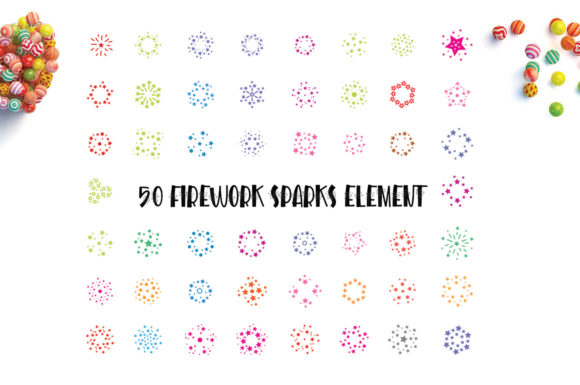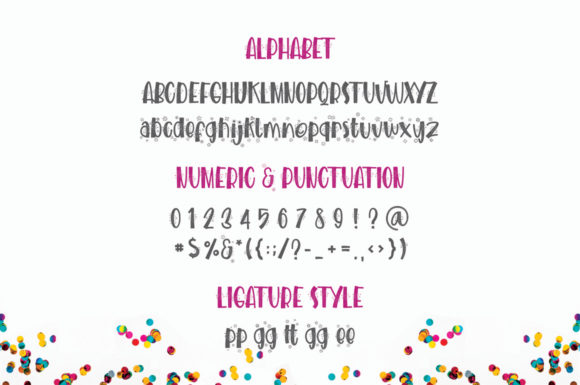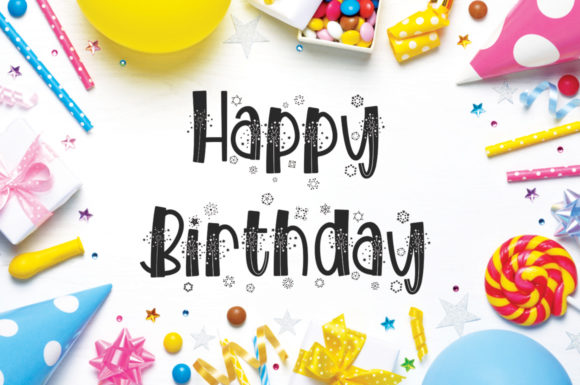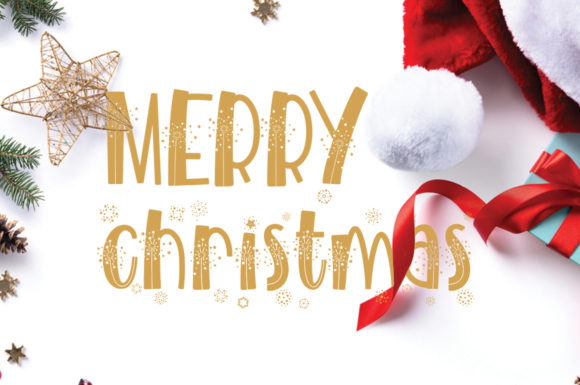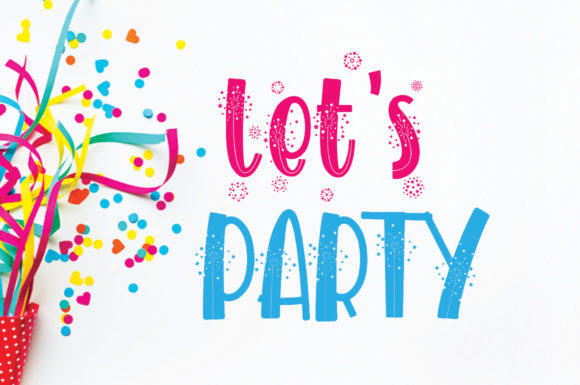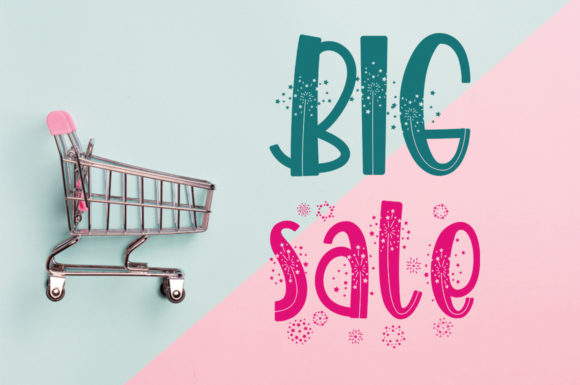
The Blinkies Font: Adding a Sparkle of Happiness to Your Designs
Have you ever been working on a design project, and suddenly, it feels like something’s missing? You’re not quite sure what it is, but you know it needs a little extra oomph. For me, that moment was when I stumbled upon the Blinkies font. I was working on a fun craft project for a client who wanted a playful, cheerful vibe, and I knew I had to find the perfect font to match. That’s when I discovered Blinkies, a delightful handwritten font that instantly brought a smile to my face.
A Personal Review: What I Love About Blinkies ✨
Here’s what I love about Blinkies:
- ✅ Playful and cheerful: Blinkies has a fun, energetic feel that’s perfect for designs that need a spark of happiness.
- ✅ Handwritten charm: The font has a lovely, human touch that makes it feel approachable and friendly.
- ✅ Versatile: Blinkies works well for a wide range of design projects, from crafts and invitations to social media graphics and more.
While I adore Blinkies, there are a few things to keep in mind:
- ⚠️ Legibility at small sizes: Like many handwritten fonts, Blinkies can be a bit tricky to read at very small sizes. Make sure to test it out at different sizes to ensure it’s legible for your project.
- ⚠️ Overuse: Blinkies is so much fun to use that it’s easy to overdo it. Be mindful of using it in moderation to avoid overwhelming your design.
One of the best things about Blinkies is its OpenType features and glyphs. These allow you to add extra flair to your text, like:
- Swashes and flourishes
- Alternate characters
- Stylistic sets
Experiment with these features to give your text a unique look and feel.
The Story Behind Blinkies: Designer Inspiration
Blinkies was designed with one goal in mind: to spread happiness through typography. The designer, a passionate lover of handwritten fonts, wanted to create a font that would bring a smile to people’s faces. With its cheerful, playful feel, Blinkies is sure to brighten up any design.
Q: What makes Blinkies unique?
A: Blinkies stands out with its playful, handwritten charm and versatile design.